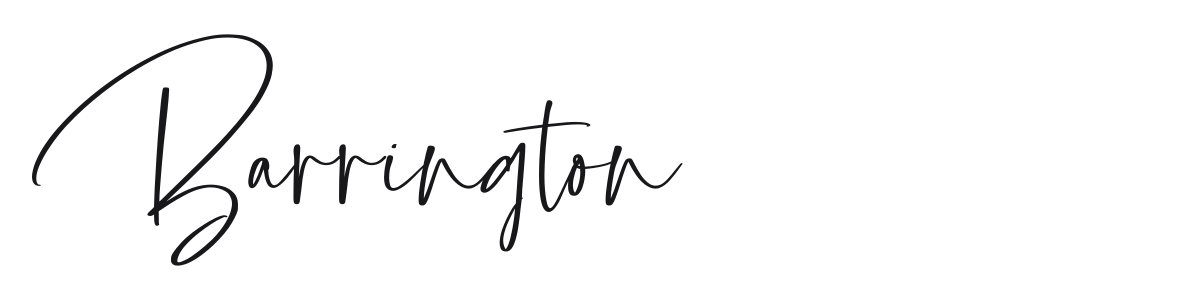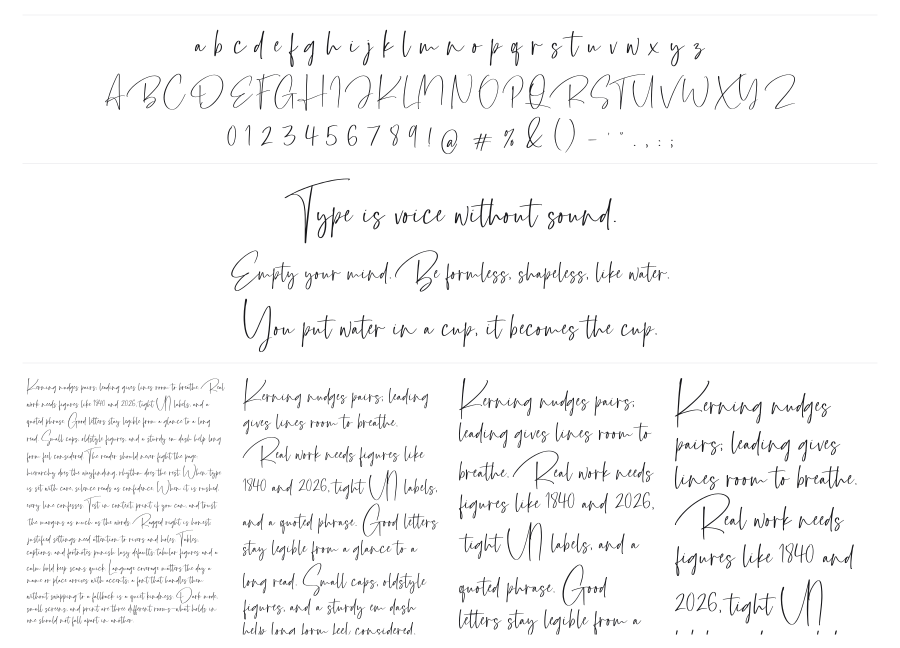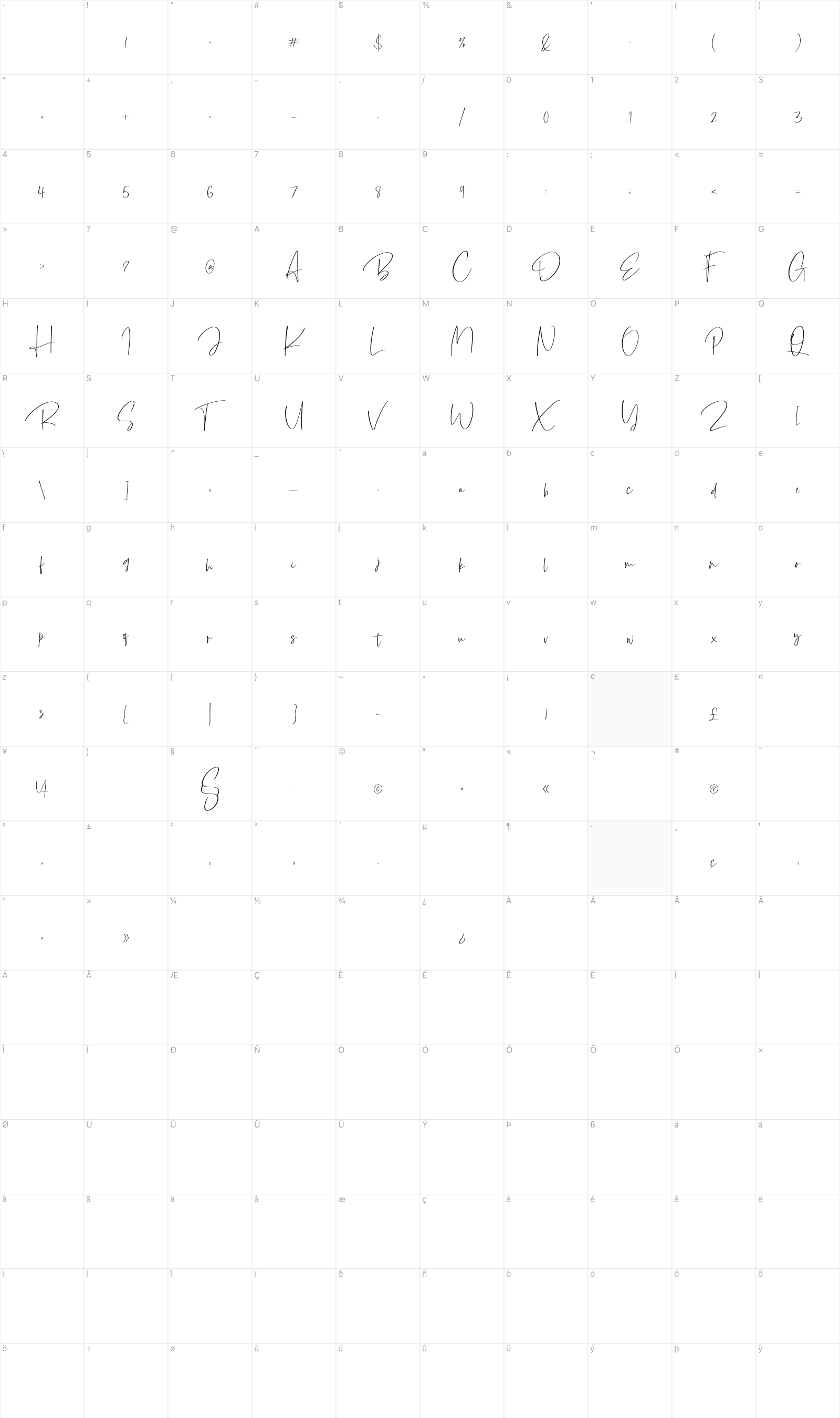
Barrington
Barrington is a flowing casual script with thin, looping strokes and a natural hand-penned rhythm. Long ascenders and descenders give it a breezy, romantic quality that suits branding in the wedding, fashion, and lifestyle spaces. The light weight and undulating baseline keep it feeling modern rather than formal.